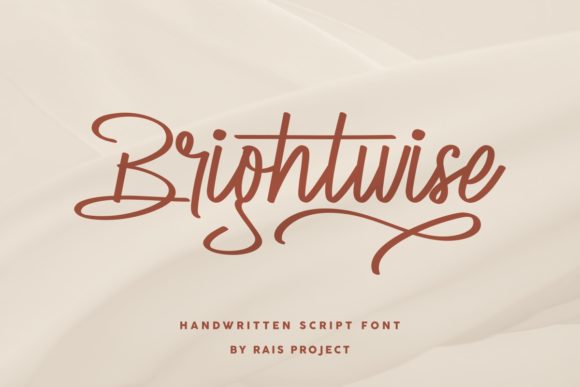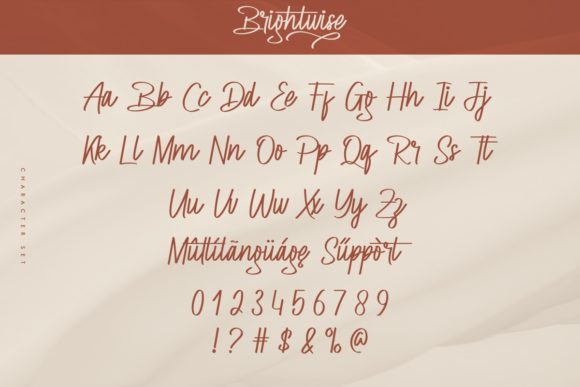
About Brightwise Font
Brightwise is a delicate, retro and cursive handwritten font. It has beautiful and well balanced characters and as a result, it matches a wide pool of designs. This font is PUA encoded which means you can access all of the glyphs and swashes with ease!